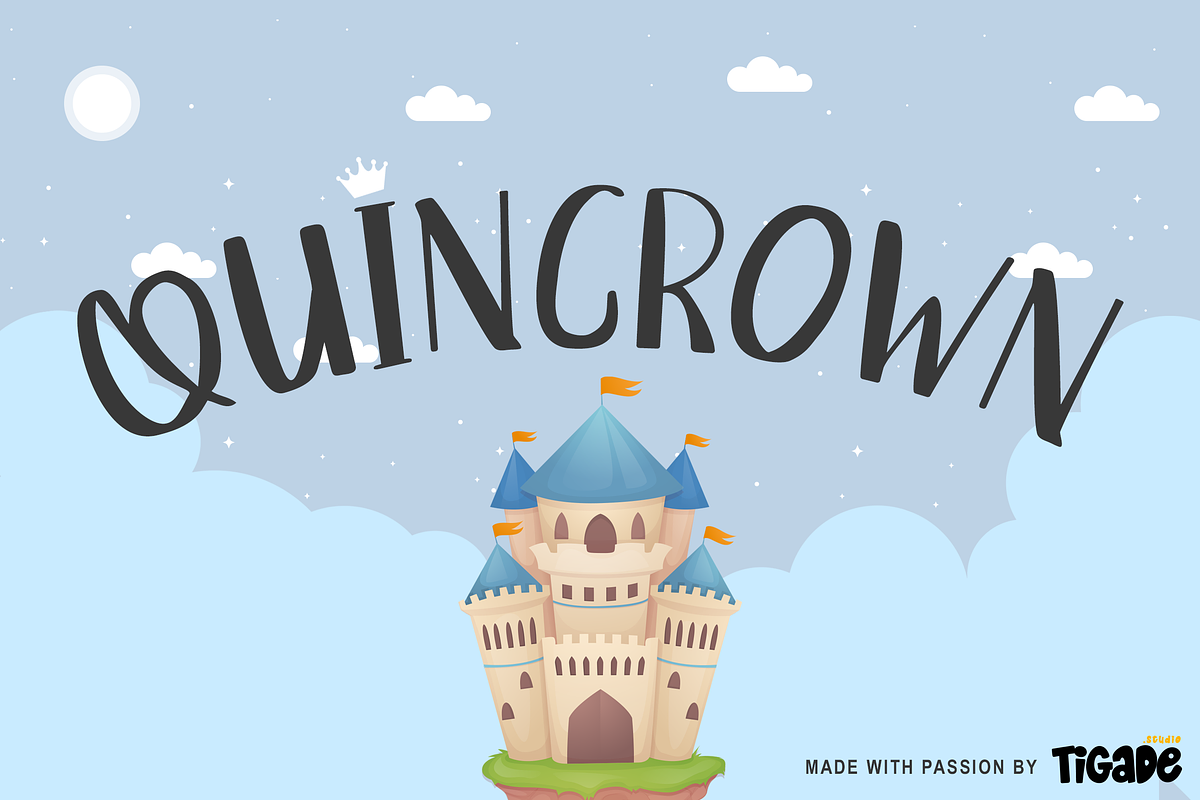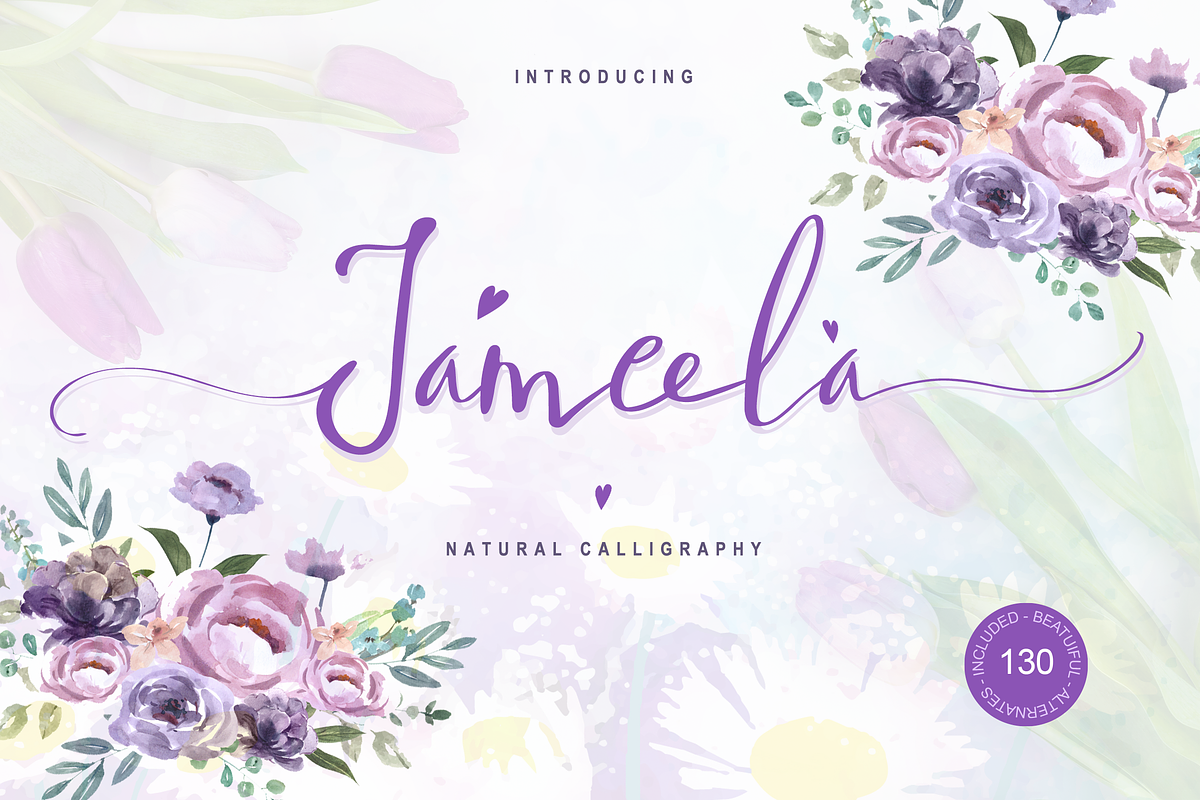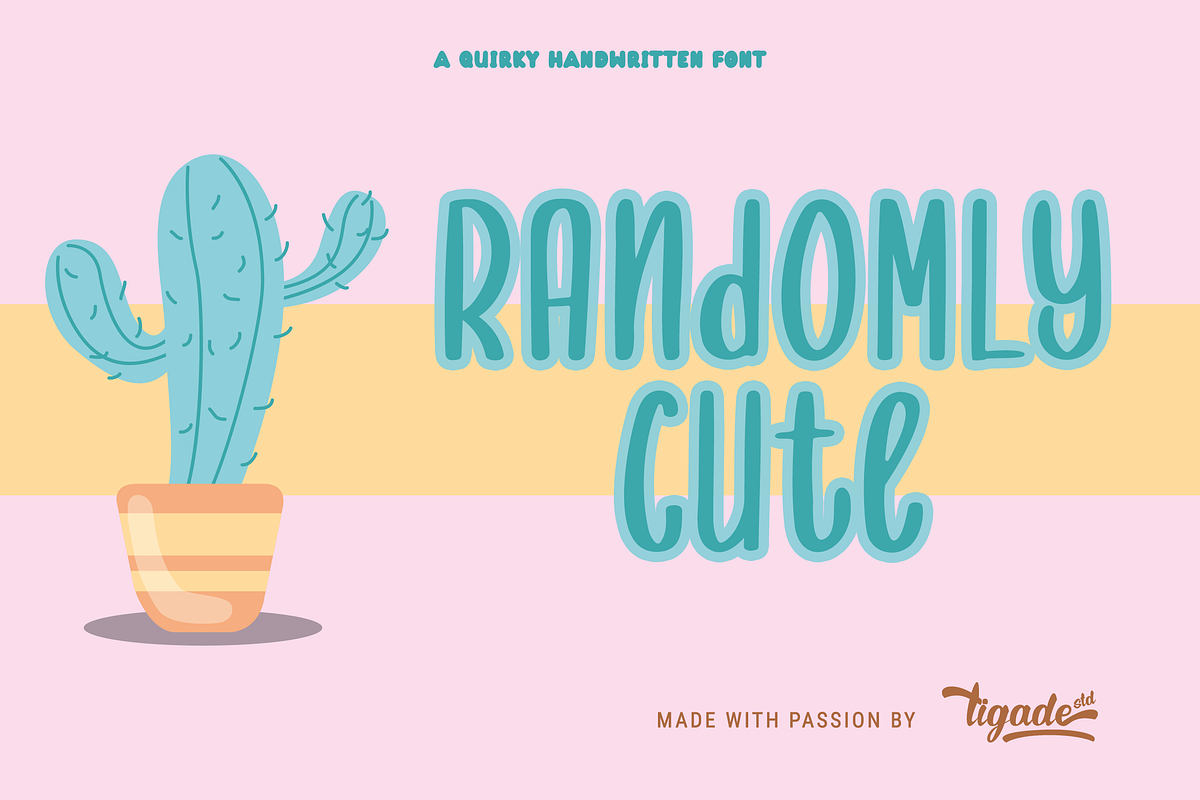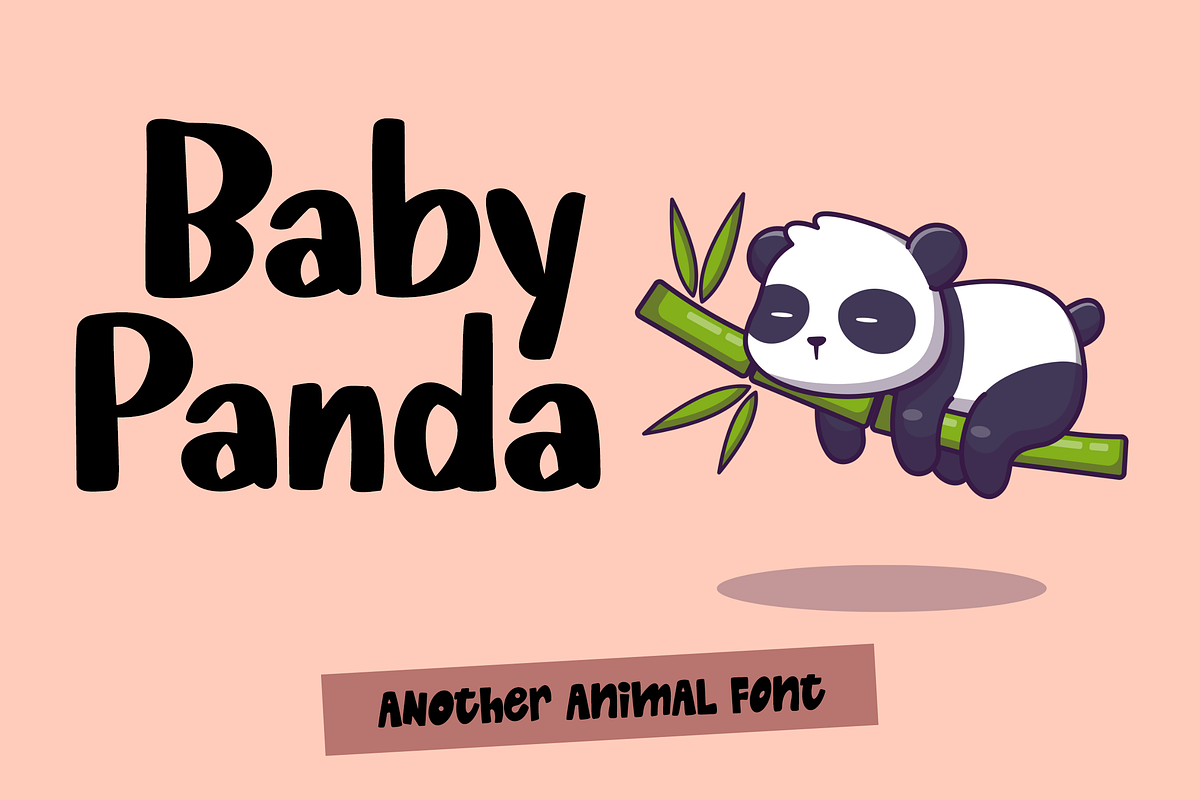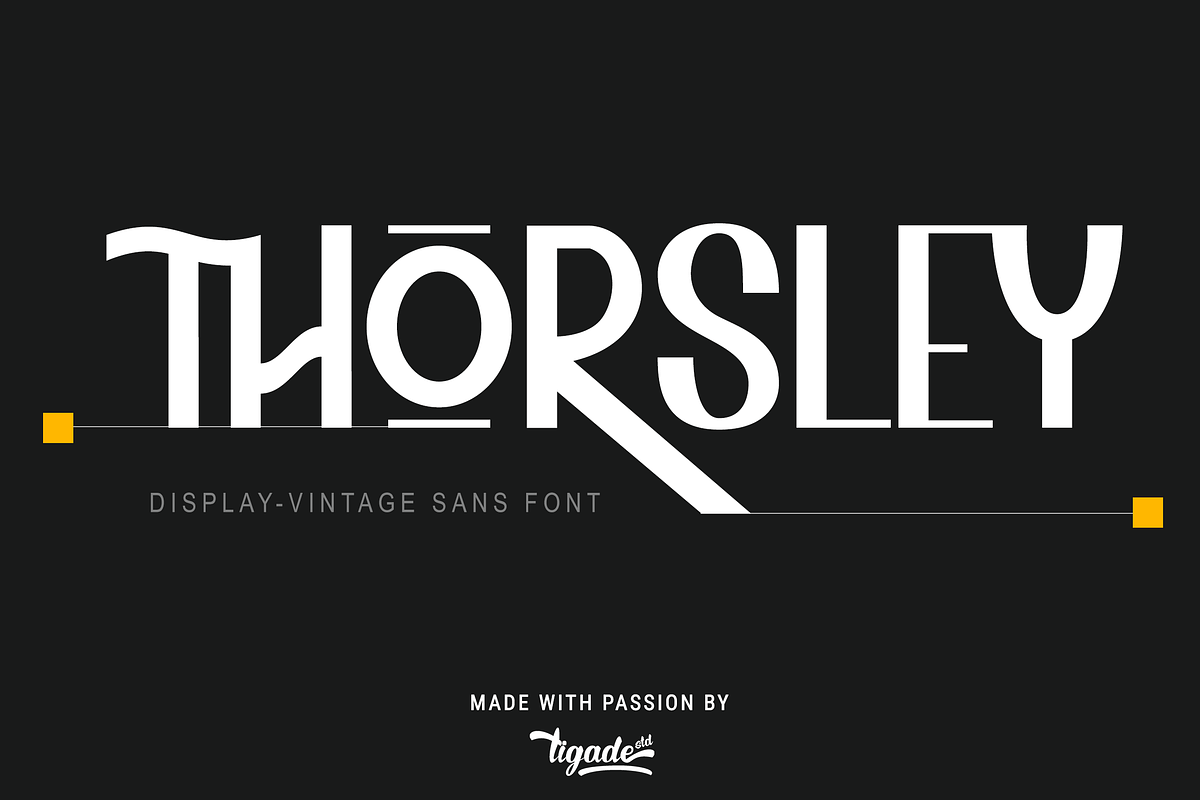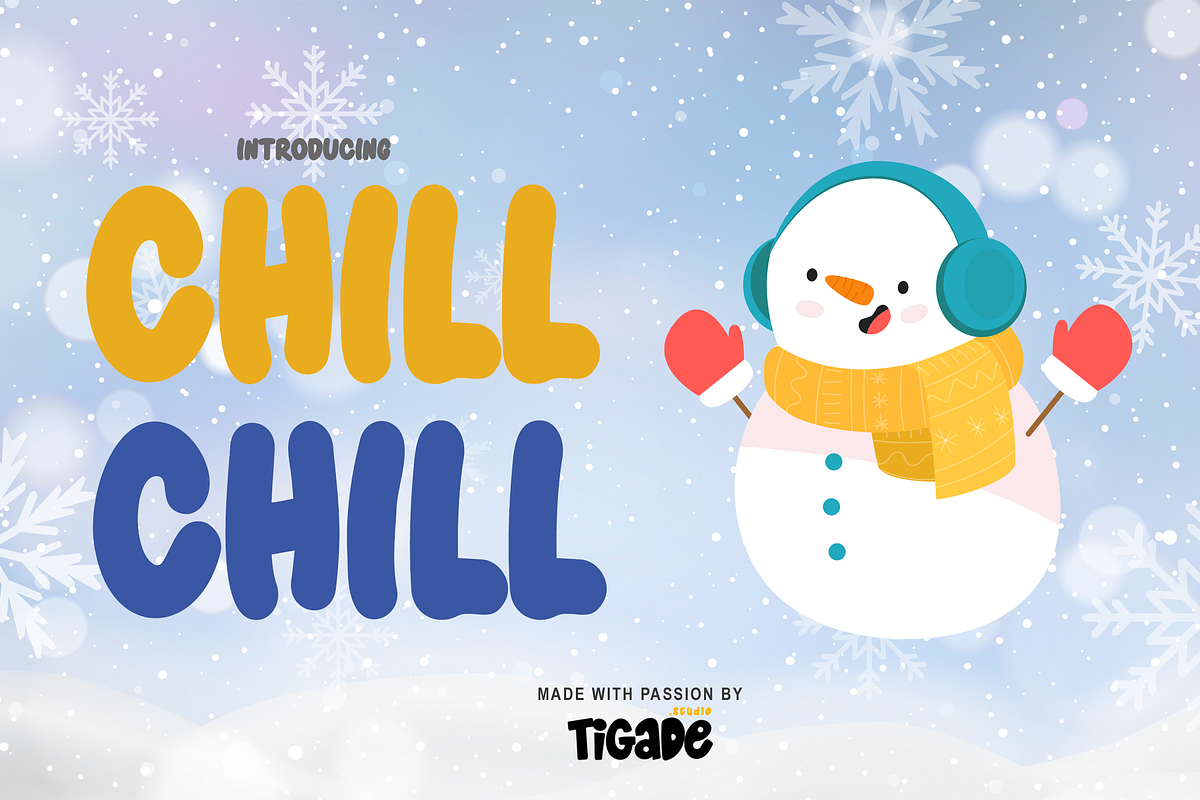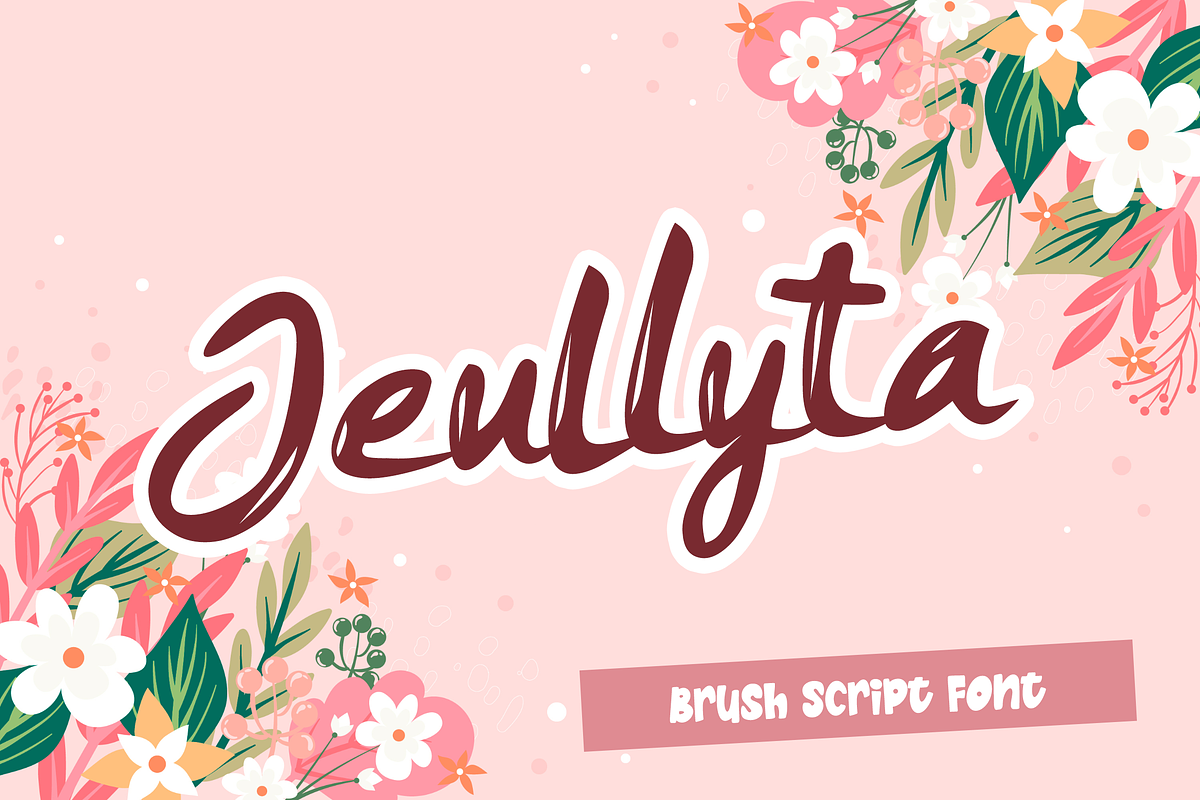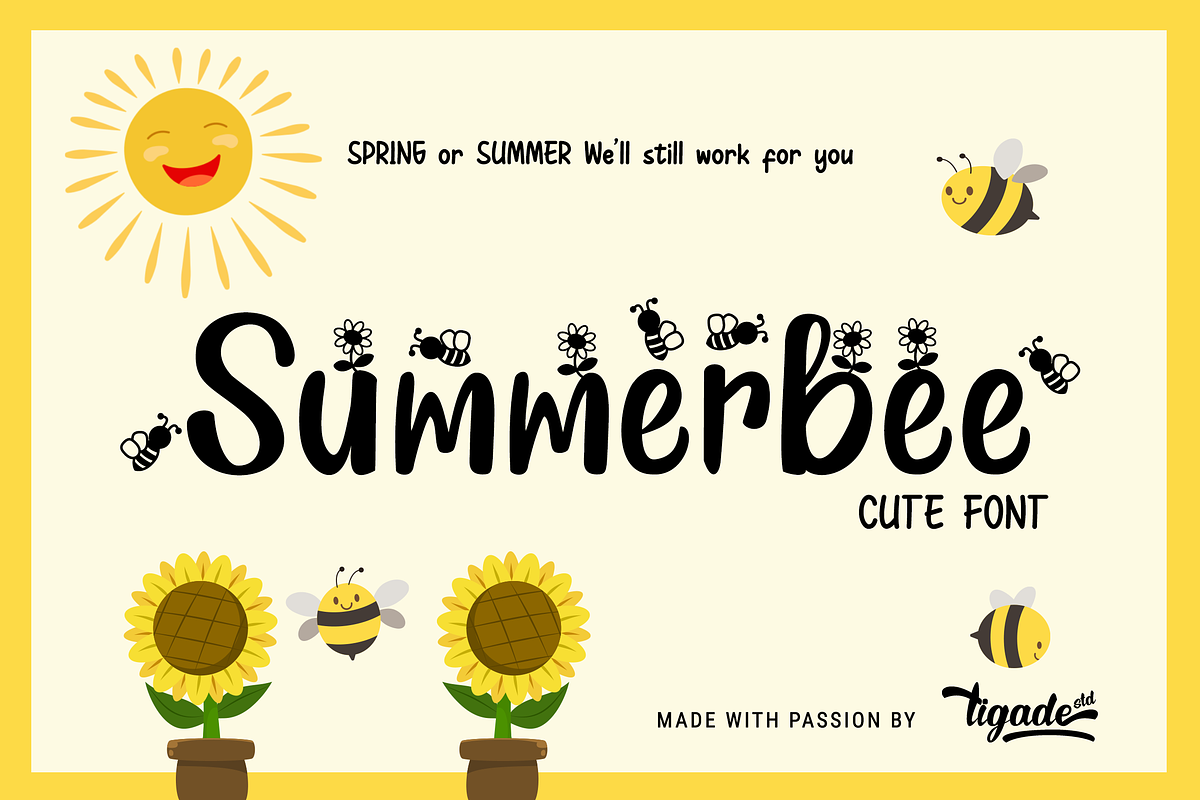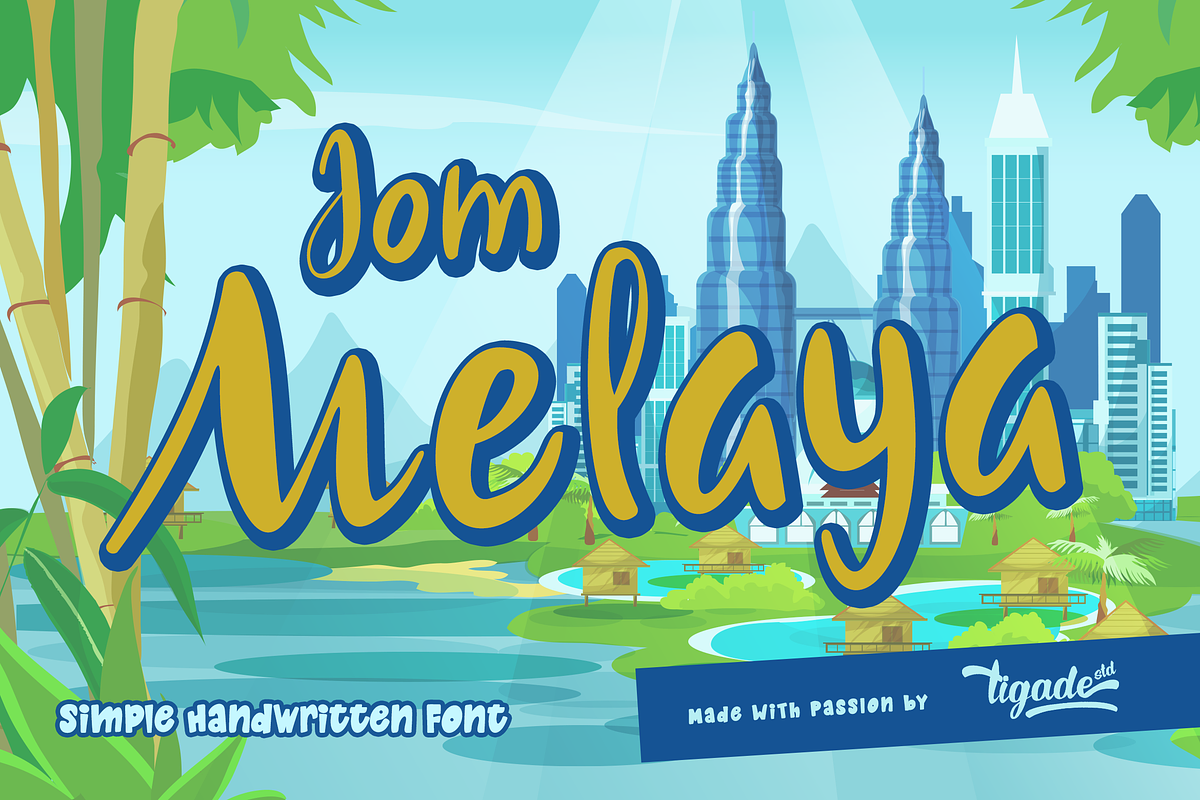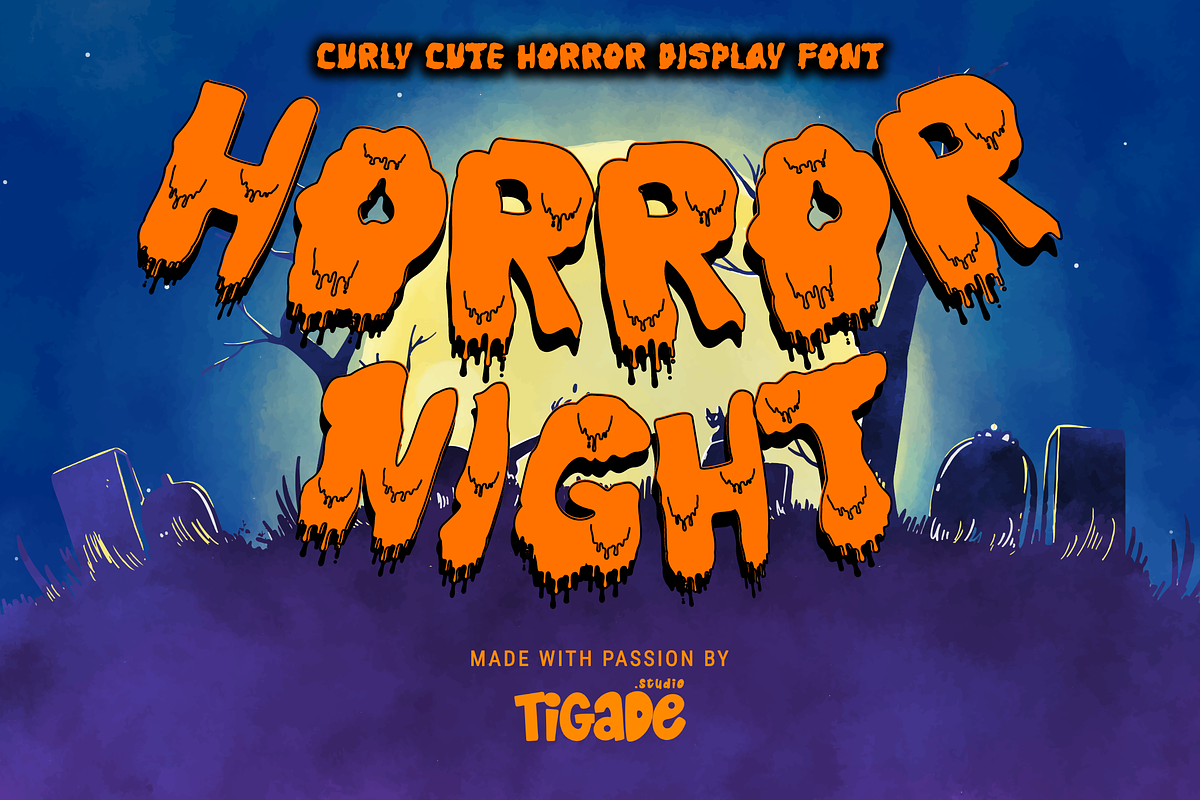
MEGA BUNDLE CRAFTING FONT VOL1
A MUST HAVE COLLECTION
This is your chance to get our BEST SELLER crafters fonts collection.
This package is very suitable for greeting cards, signature logos, holiday invitations, wedding invites, stationery, logos, inspirational quotes, posters, blog headers, packaging, custom prints and more!